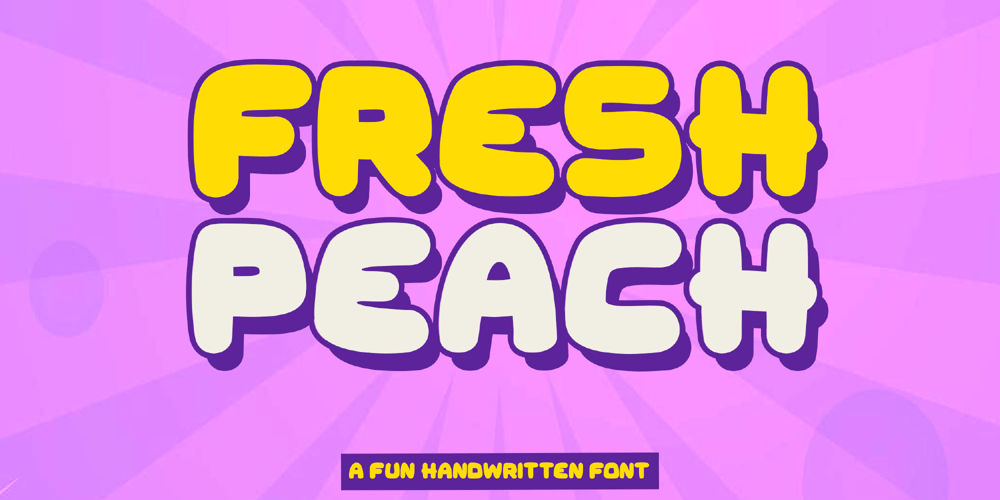
Fresh Peach Font Family was designed by Achmad Yani and published by Flawlessandco. Fresh Peach contains 2 styles and family package options. Introducing “Fresh Peach” – a fun and bold handwritten font that brings a burst of energy and playfulness to your designs. With its vibrant and lively letterforms, Fresh Peach adds a delightful touch of creativity and excitement.There’s some connected letters and some alternates that suitable for any graphic designs such as branding materials, t-shirt, print, business cards, logo, poster, t-shirt, photography, quotes .etcThis font support for some multilingual. Also contains uppercase A-Z and lowercase a-z, alternate character, numbers 0-9, and some punctuation.If you need help, just write me! Thanks so much for checking out my shop!